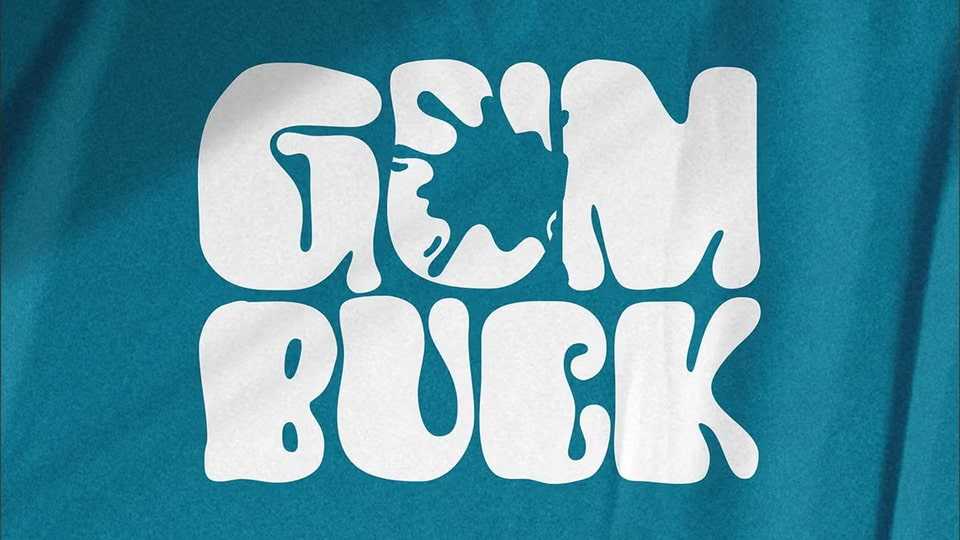
Download Gumbuck font, a bold and playful handwriting display typeface that brings a fun and unique touch to your designs. Inspired by the soft, bouncy feel of balloons and the stretchy nature of gum.